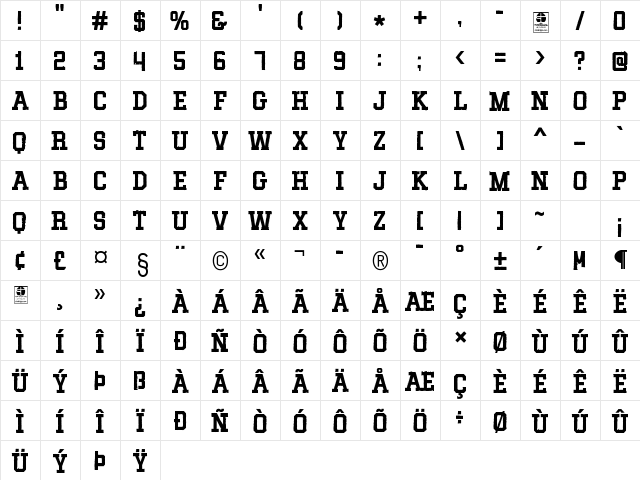
MIXIVA-DUSTY demo Regular
Design Context for MIXIVA-DUSTY demo Typeface
MIXIVA-DUSTY demo is a composed and adaptable typeface that performs quietly and consistently across a wide range of design contexts.